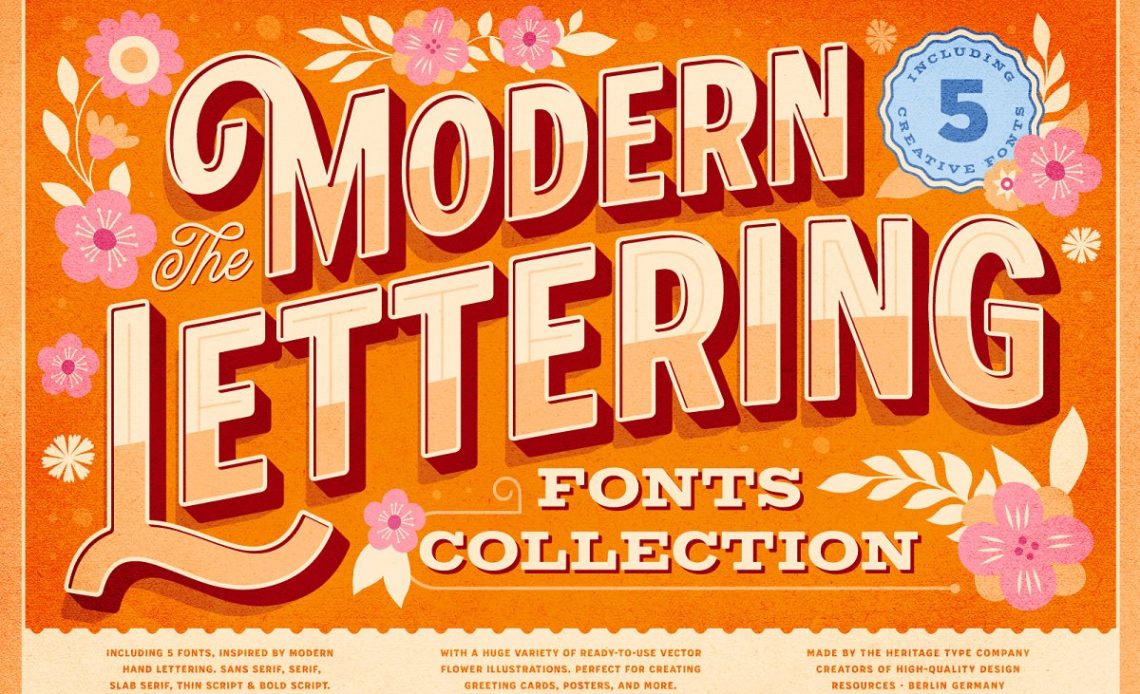
Introducing the Modern Lettering Fonts Collection - the ultimate solution for anyone seeking to elevate their designs with a modern touch. This collection is a masterpiece of hand-lettering artists, with each font designed to imitate hand-drawn type, making your projects unique and creative.
The collection features 5 fonts and over 100 floral illustrations, allowing you to add life to your designs. The fonts have soft edges and a wide range of alternate glyphs, making them versatile and perfect for any project.
But the best part is yet to come - this collection is not limited to just fonts! It comes equipped with a set of spot elements, grainy dirt textures, and 3 ready-to-use text styles for Adobe Illustrator, offering endless possibilities for your designs.
With the Modern Lettering Fonts Collection, you can create stunning layouts for posters, cards, packaging designs, logos, and more. The collection has Latin extended characters, numerals, and punctuations, as well as alternate characters and ligatures.